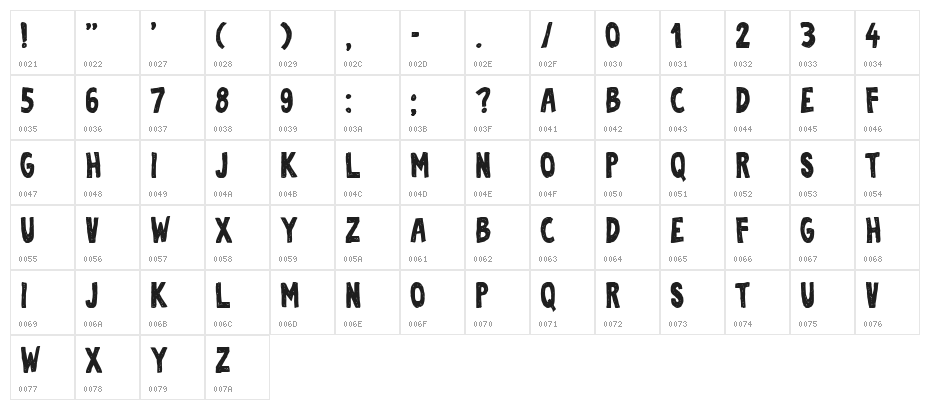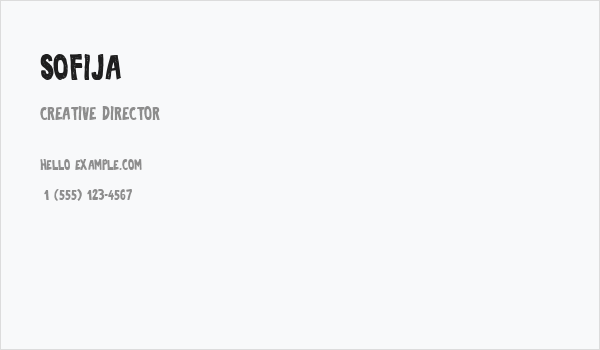
Sofija Font
Sofija Description
This font features a bold and playful style with a hand-drawn appearance. The letters are thick and slightly irregular, giving them a casual and informal look. The strokes are uneven, adding a textured and dynamic feel to the characters. This font is highly legible and stands out due to its boldness and unique character shapes. It includes both uppercase and lowercase letters, numbers, and a variety of punctuation marks. The overall design is energetic and lively, making it suitable for projects that require a fun and engaging typeface.
| Overall Style | Playful, Hand-drawn |
| Use Case | Headlines, Posters, Branding |
| Proposed Projects | Ideal for children's books, posters, greeting cards, and playful branding. |